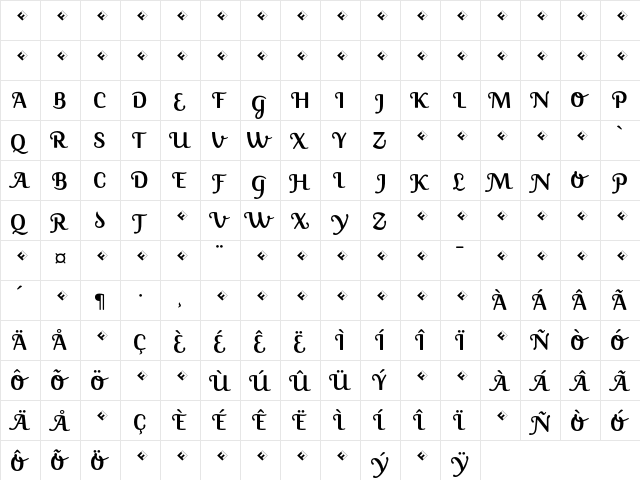
Jackie-Swash Regular Font Preview
Jackie-Swash Regular
Design Context for Jackie-Swash Typeface
Jackie-Swash brings a calligraphic fluidity to the page — its connecting strokes and expressive curves give it an unmistakably human quality.
Font Pairing: Combine Jackie-Swash with a simple geometric sans for maximum contrast — the tension between flowing curves and clean structure is a classic typographic pairing.